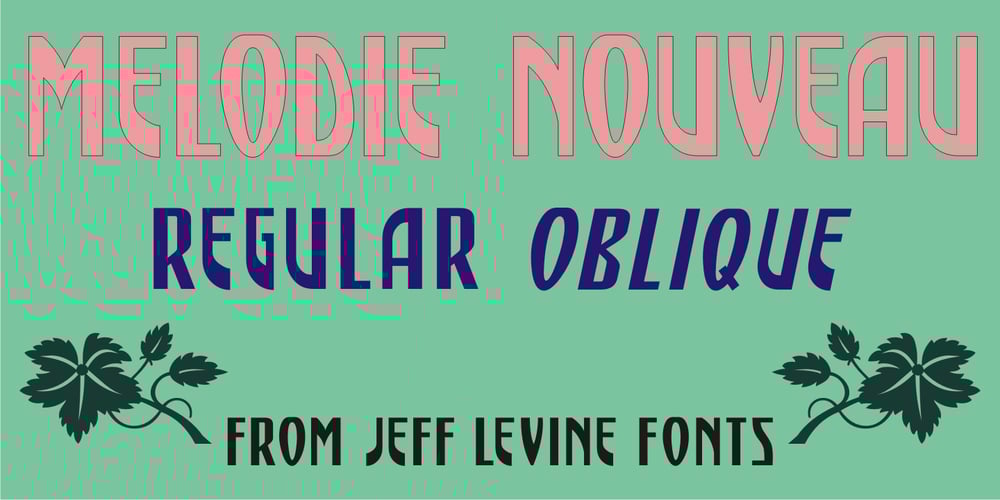
Melodie Nouveau JNL
Melodie Nouveau JNL font
Melodie Nouveau JNL Font Family was designed by Jeff Levine and published by Jeff Levine. Melodie Nouveau JNL contains 2 styles and family package options. The Art Nouveau hand lettering on the sheet music for 1915’s “I’m Glad It was Only A Dream” served as the inspiration for Melodie Nouveau JNL, which is available in both regular and oblique versions.